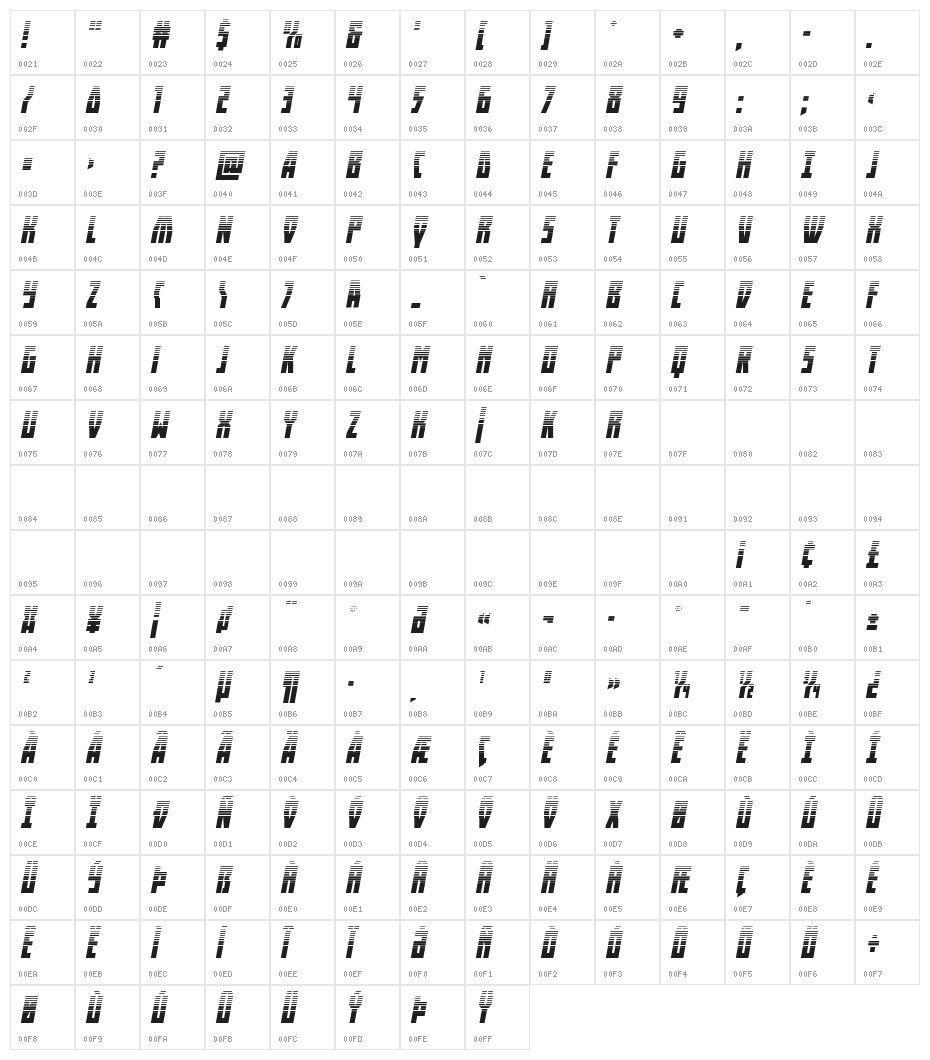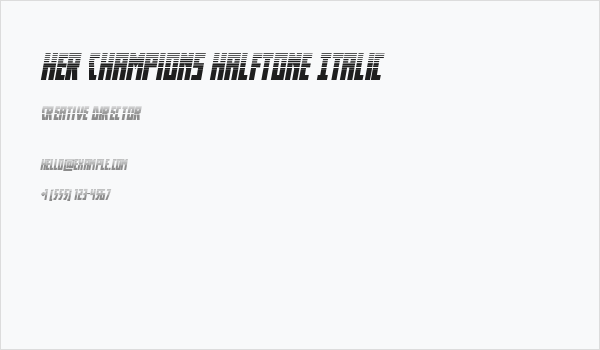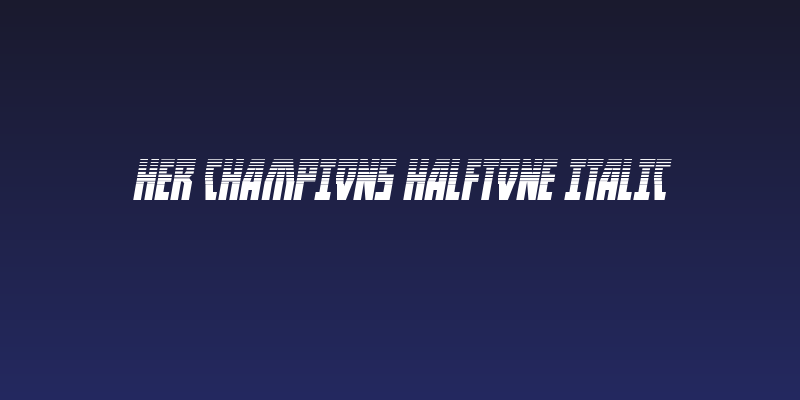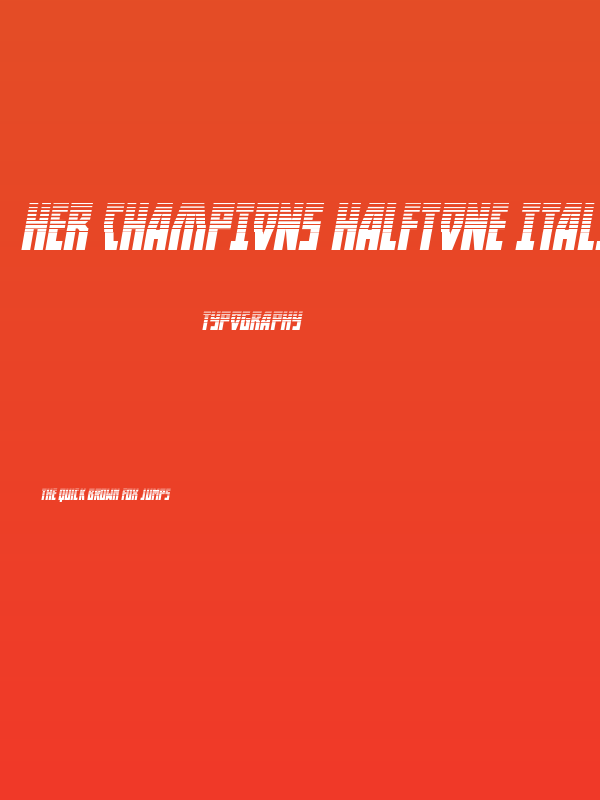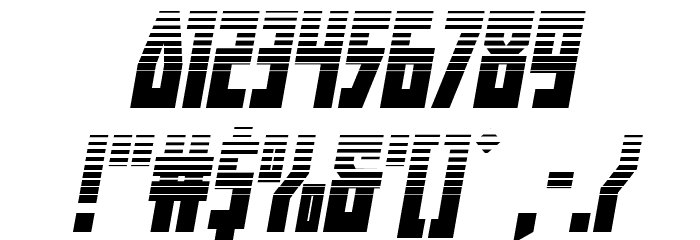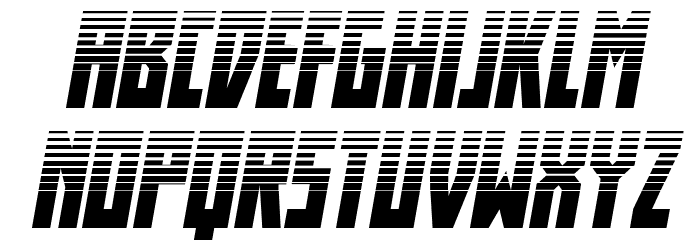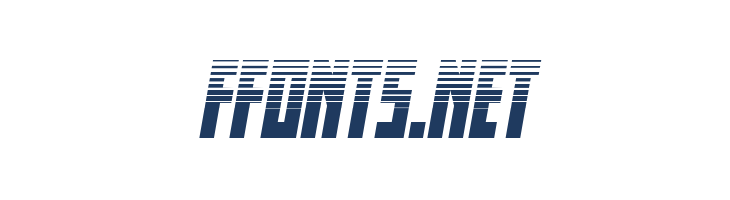
Her Champions Halftone Italic Font
Her Champions Halftone Italic Description
This font features a bold, dynamic style with a halftone effect that gives it a modern and edgy appearance. The characters are italicized, adding a sense of motion and urgency. The uppercase and lowercase letters, as well as numbers and special characters, are designed with a consistent pattern of horizontal lines that create a gradient effect from top to bottom. This unique design element makes the font stand out, making it ideal for attention-grabbing headlines or logos. The spacing between characters is tight, enhancing the compact and impactful look of the text. The overall style is decorative and futuristic, suitable for projects that require a bold and distinctive visual identity.
| Proposed Projects | Ideal for use in sports branding, music album covers, event posters, and any project requiring a bold, modern aesthetic. |